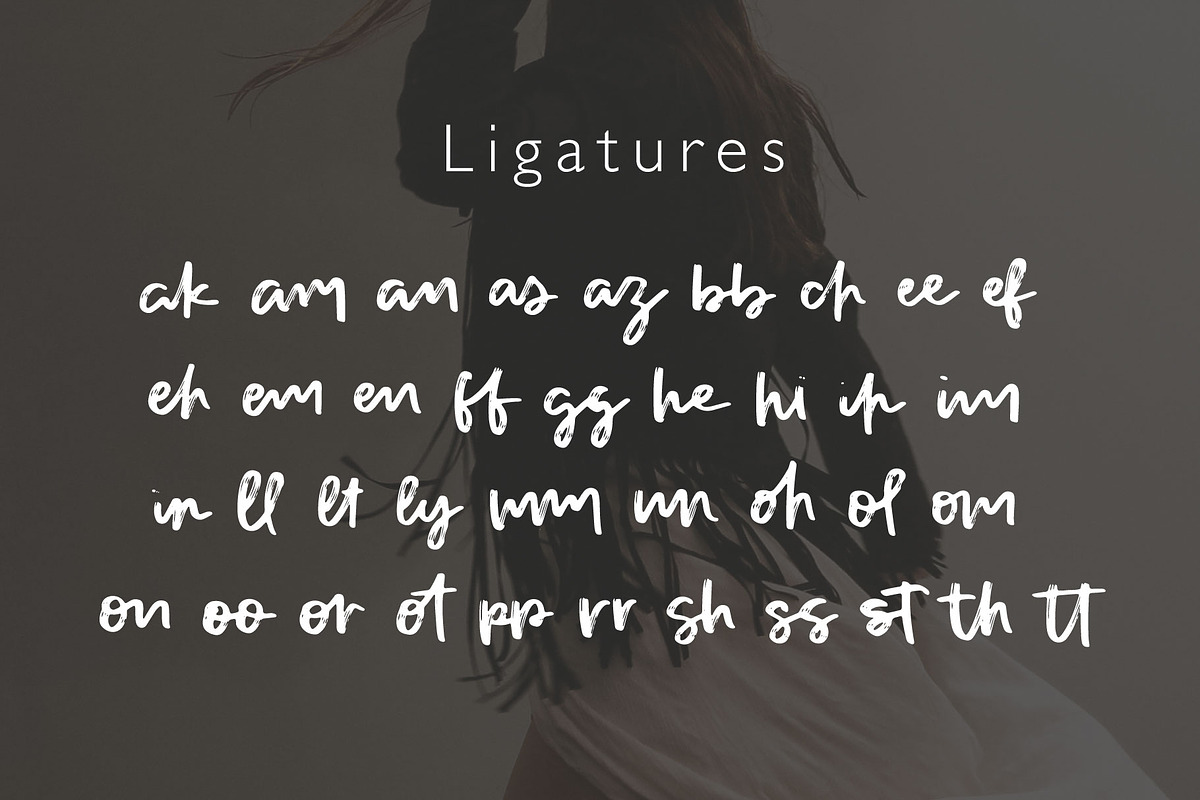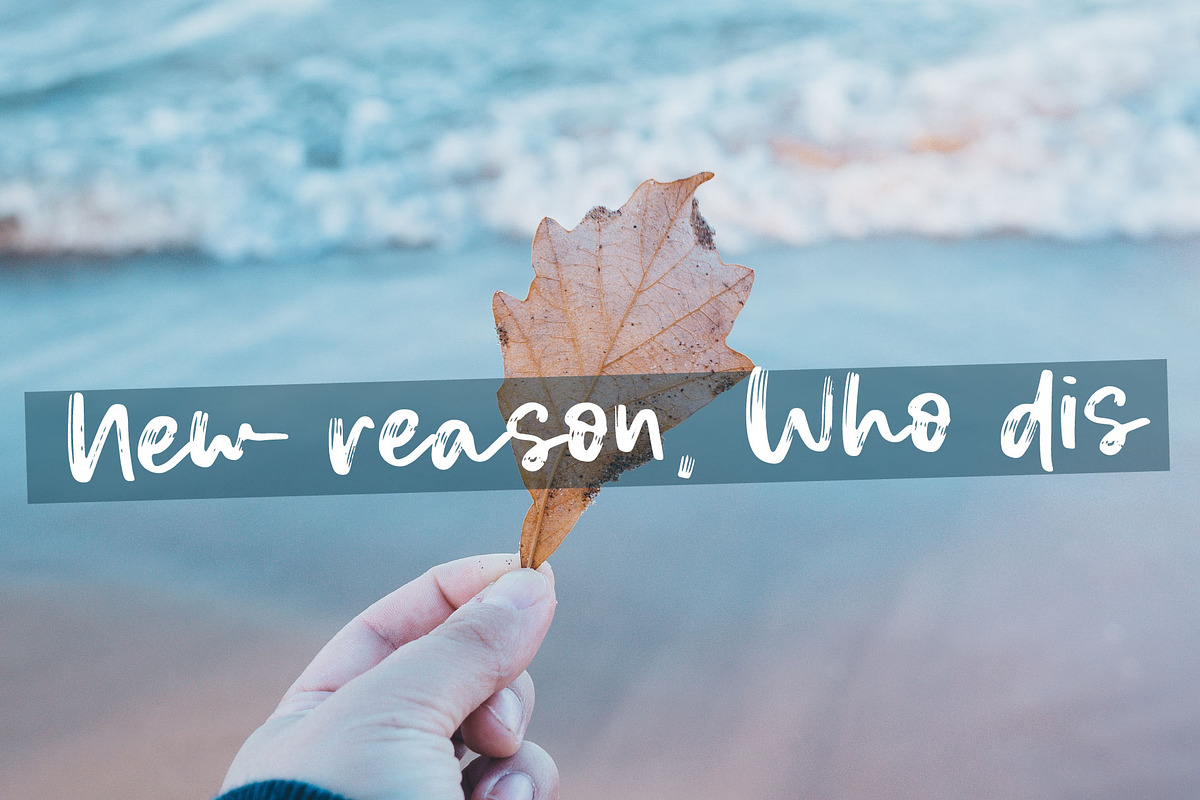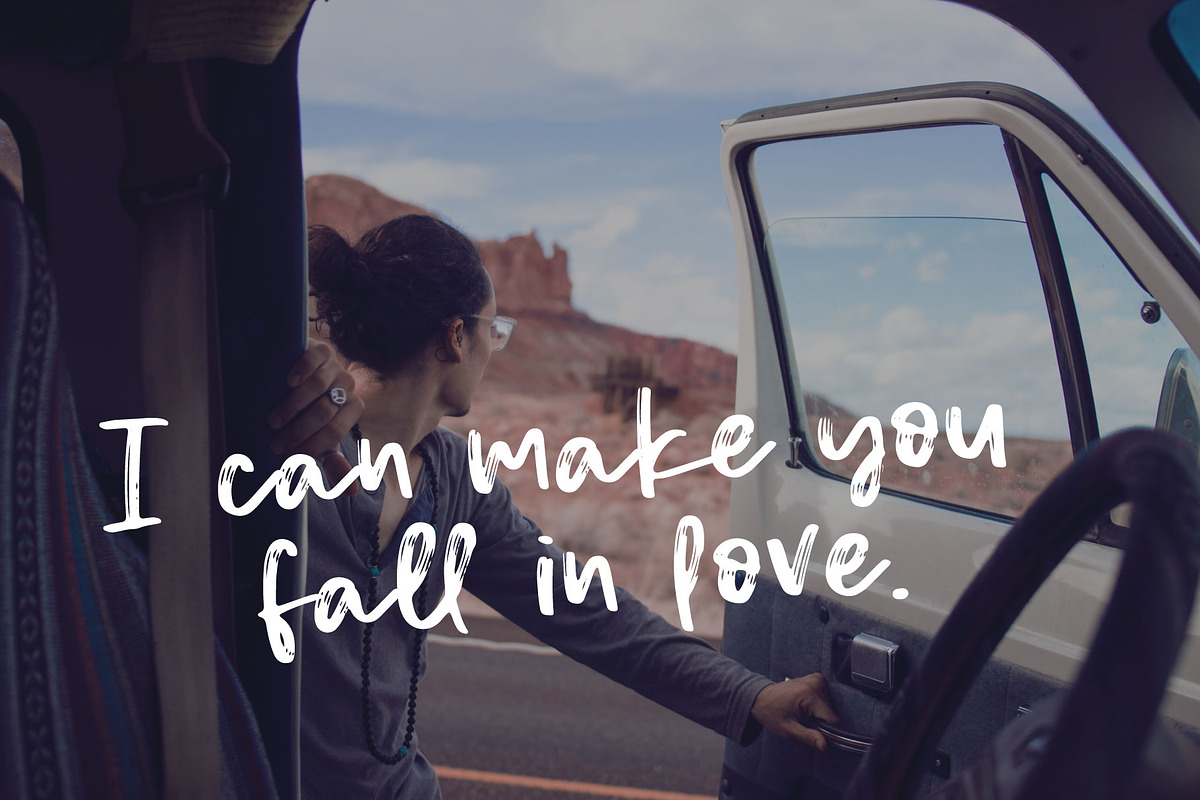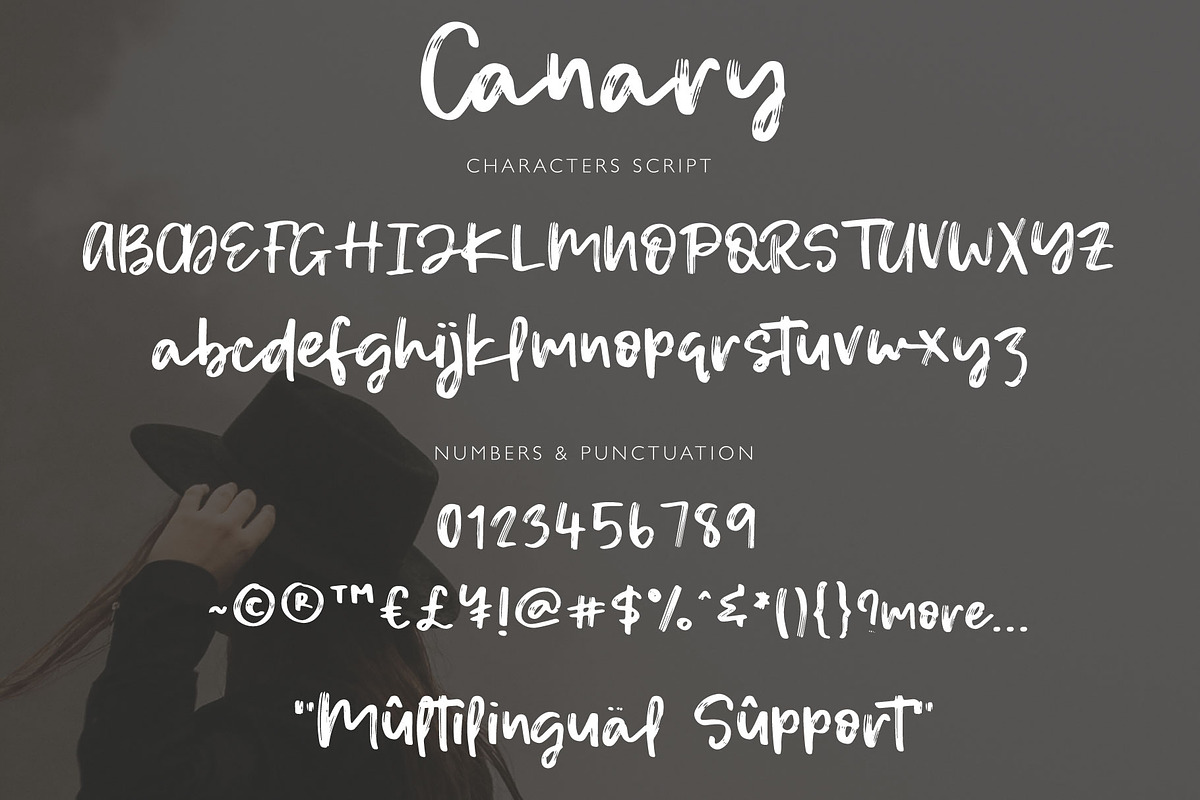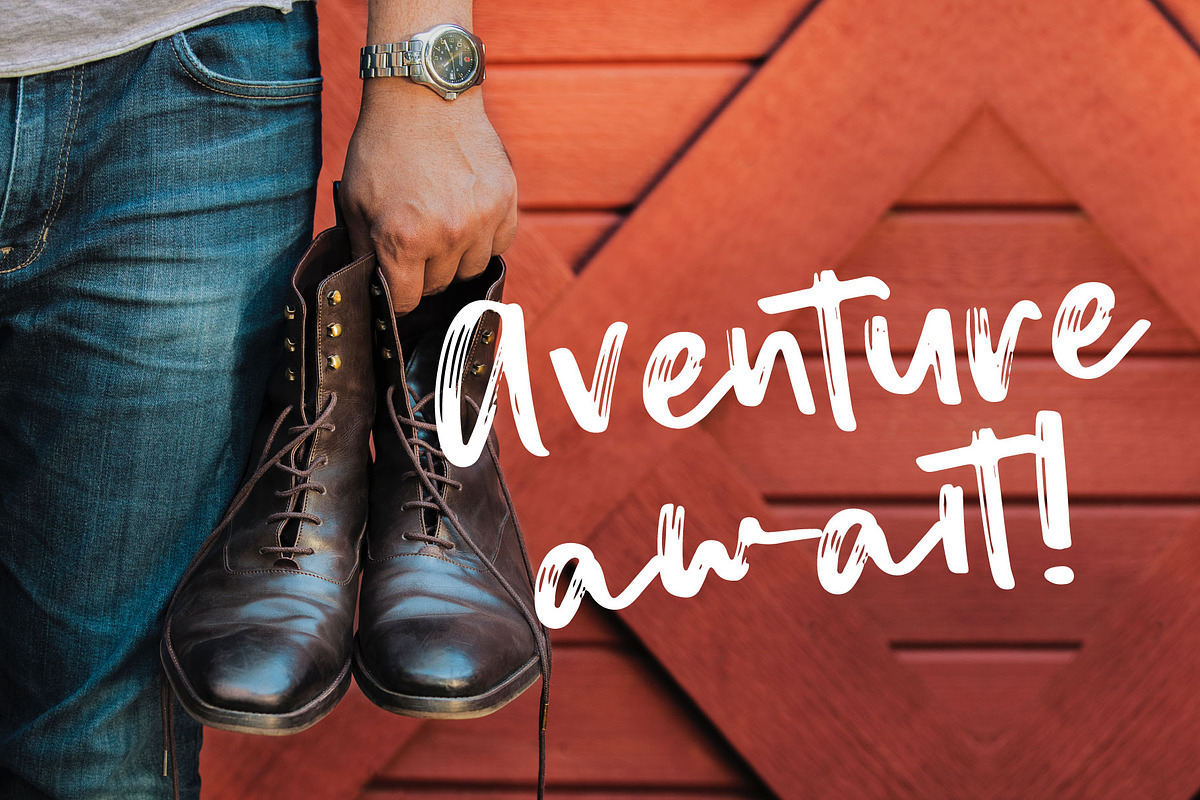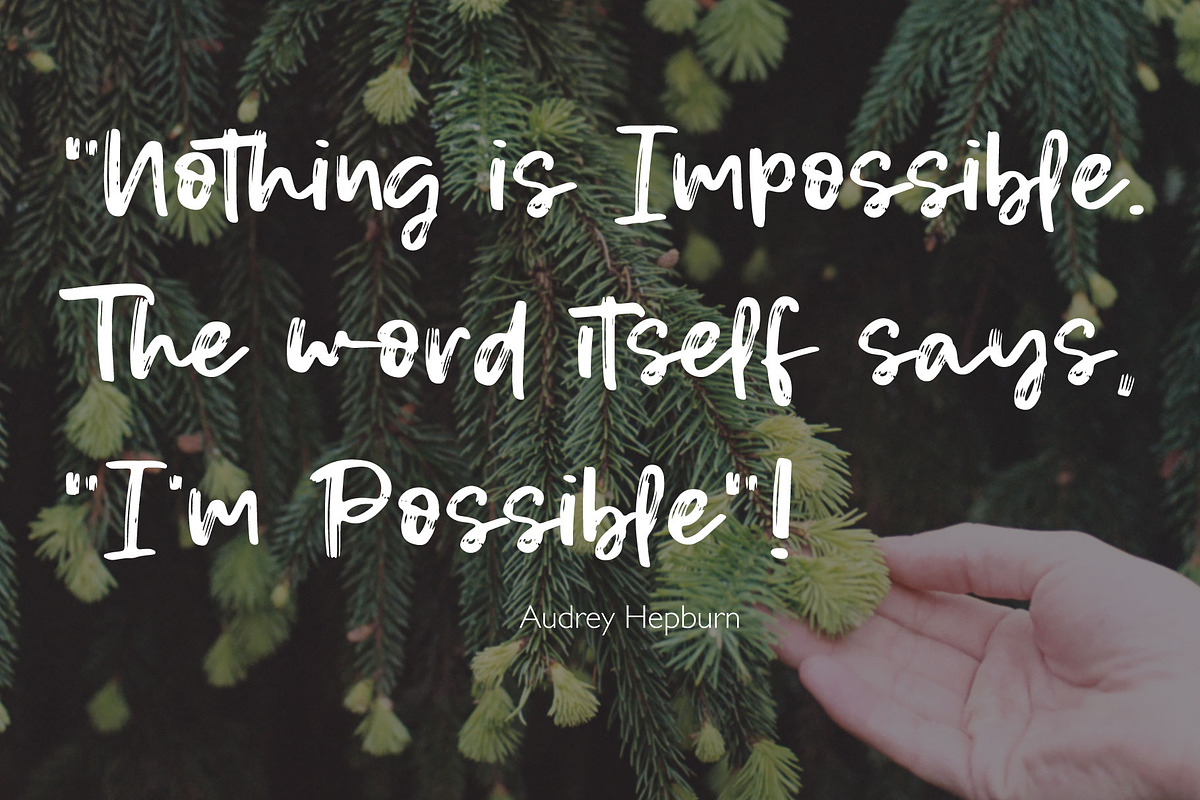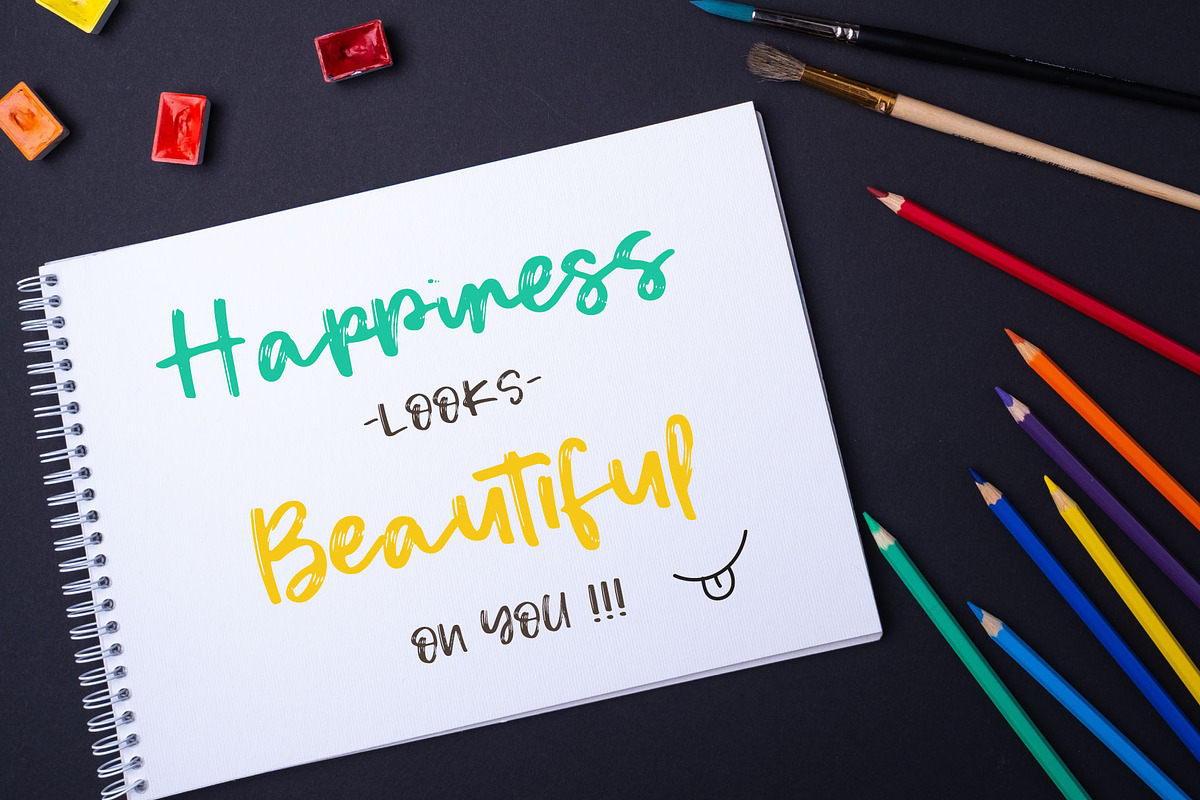
Canary | Handwritten Font
Canary Hand written Brush Stylist font perfect for high impact headlines
Every single letter has been creative carefully and Perfectly Playful new font pair. This font is a perfect script designed for making your set of invitations, Brand, blog posts, and more completely beautiful
Uppercase and Lowercase numbers punctuation Ligatures
multilingual support for the following languages: Cornish, Danish, Dutch, English, Estonian, Faroese, Filipino, Finnish, French, Galician, German, Icelandic, Indonesian, Irish, Italian, Norwegian Bokmål, Norwegian Nynorsk, Portuguese, Spanish, Swahili, Swedish, Swiss German.
Canary | Handwritten Font by Artstudio fits naturally into Branding, posters, packaging, typography.